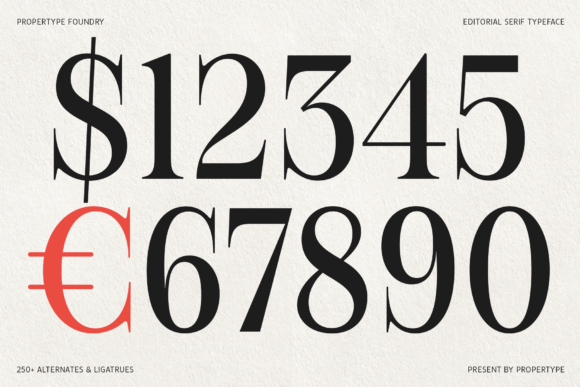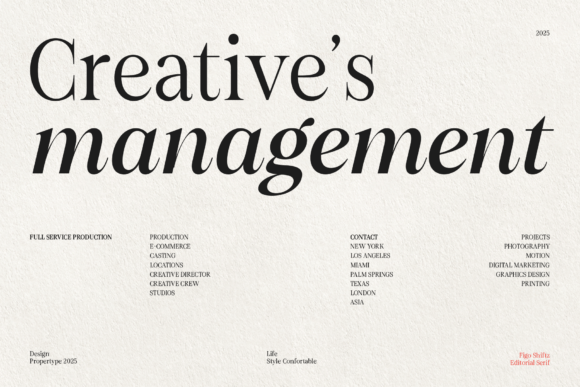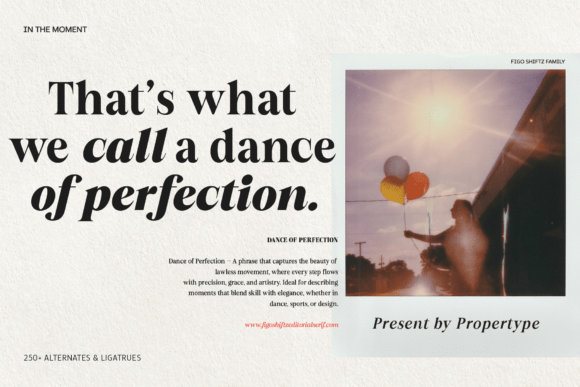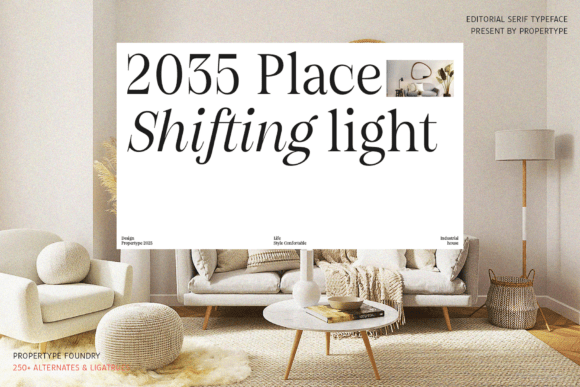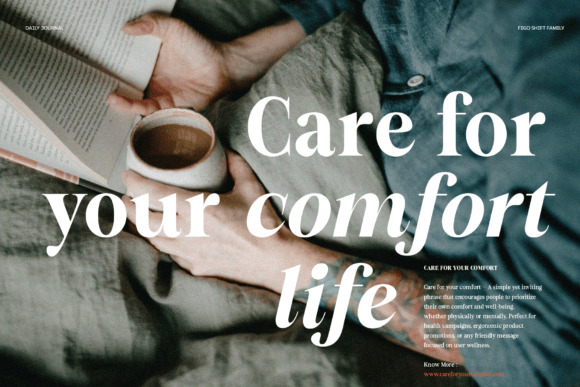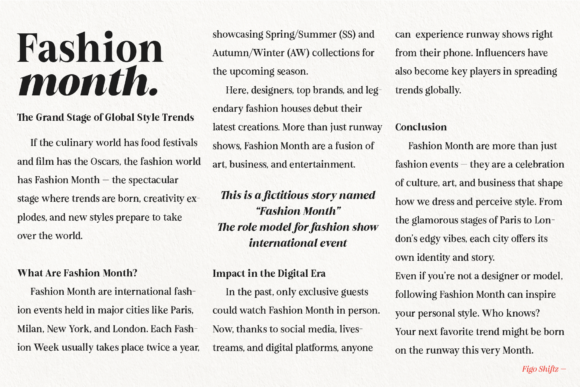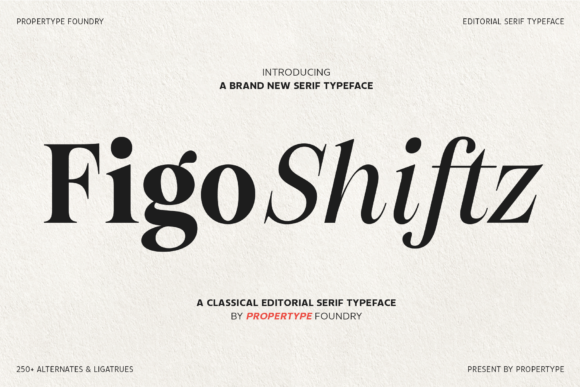
Introducing Figo Shiftz Font: A Timeless Editorial Serif Typeface
In the world of typography, few fonts manage to strike a balance between classic elegance and modern sophistication. Figo Shiftz, however, is a notable exception. This classical editorial serif typeface seamlessly blends traditional typography with a refined contemporary touch, making it an ideal choice for designers and crafters seeking to elevate their visual creations.
Design and Features
Figo Shiftz is designed to deliver both beauty and versatility. With 9 weights ranging from Thin to Black, paired with refined calligraphic italics, this font gives you full control over your typographic voice. Whether you’re crafting dramatic headlines or perfectly composed body text, Figo Shiftz offers 250+ alternates and ligatures, enabling limitless creative expression.
Applications and Use Cases
The versatility of Figo Shiftz makes it suitable for a wide range of applications, including:
- Editorial and Magazine Layouts: Figo Shiftz’s elegant serifs, finely tuned contrast, and sophisticated curves make it perfect for editorial and magazine layouts, where readability and aesthetics are paramount.
- Fashion and Luxury Branding: The font’s refined and sophisticated presence makes it an excellent choice for fashion and luxury branding, where high-end visuals are essential.
- Packaging and Visual Identity: Figo Shiftz’s ability to convey elegance and sophistication makes it ideal for packaging and visual identity projects, where brands seek to make a lasting impression.
- Typographic Posters: The font’s dramatic flair and versatility make it well-suited for typographic posters, where creative expression is key.
- Premium Promotional Materials: Figo Shiftz’s refined presence and classic elegance make it perfect for premium promotional materials, such as brochures, catalogs, and annual reports.
Technical Features
Figo Shiftz is also available as a variable font, allowing for even greater flexibility and control over your typography. This feature enables you to fine-tune your font choices, adjusting weight, style, and other attributes to suit your design needs.
Why Choose Figo Shiftz?
So, why should designers and crafters choose Figo Shiftz over other fonts? Here are a few compelling reasons:
- Timeless Elegance: Figo Shiftz’s classical design ensures that your typography remains timeless and elegant, even as design trends evolve.
- Versatility: With 9 weights, refined calligraphic italics, and 250+ alternates and ligatures, Figo Shiftz offers unparalleled versatility for a wide range of design applications.
- Sophisticated Presence: The font’s refined presence and classic elegance make it perfect for high-end designs, from luxury branding to premium promotional materials.
In conclusion, Figo Shiftz is a powerful and elegant font that offers designers and crafters a unique combination of classic sophistication and modern versatility. Whether you’re working on editorial layouts, fashion branding, or premium promotional materials, Figo Shiftz is an excellent choice for anyone seeking to elevate their typography and create visually stunning designs.
With its refined features, technical versatility, and timeless elegance, Figo Shiftz is poised to become a go-to font for designers and crafters seeking to make a lasting impression. Experience the beauty and flexibility of Figo Shiftz for yourself, and discover the perfect balance between classical typography and modern sharpness.